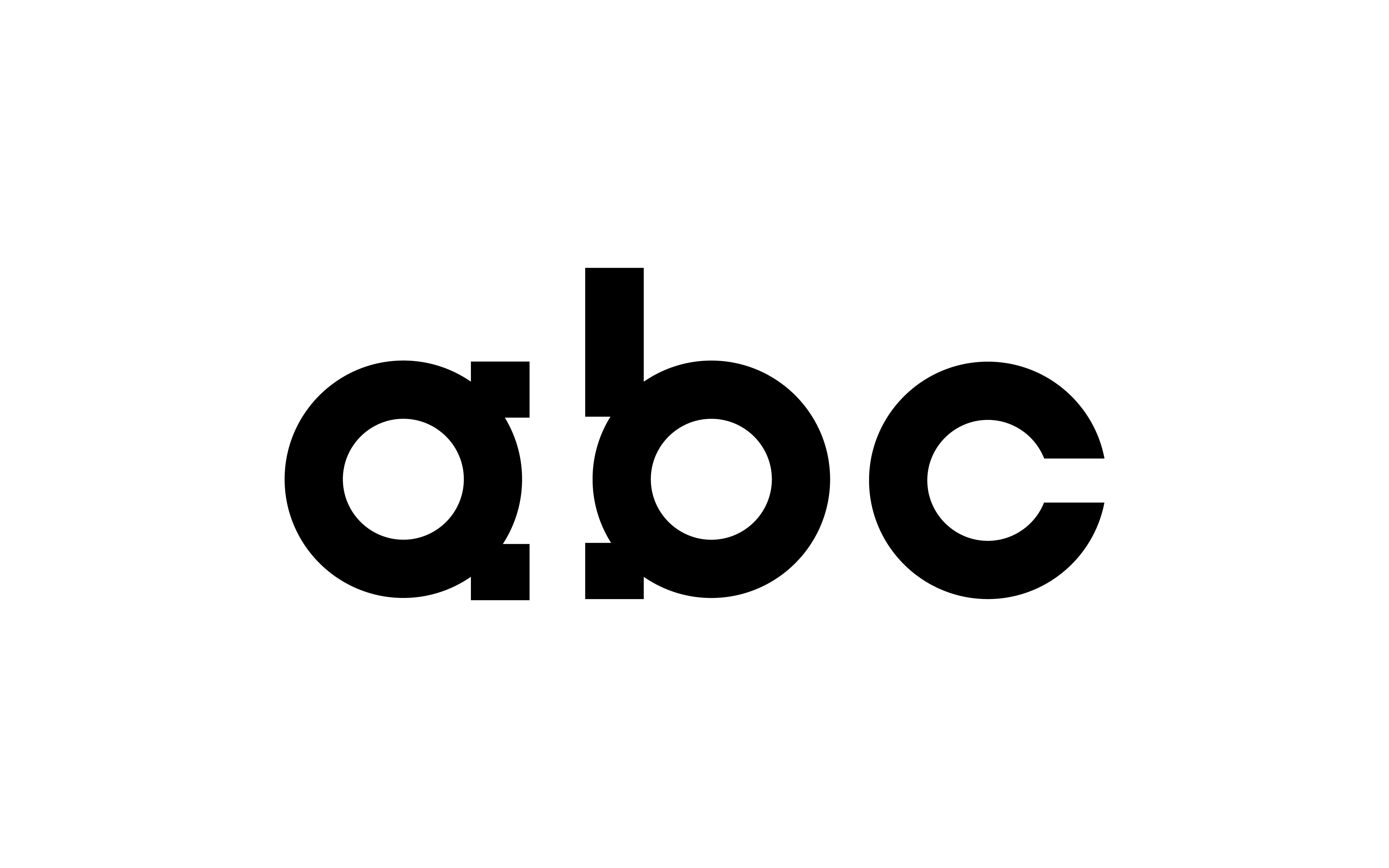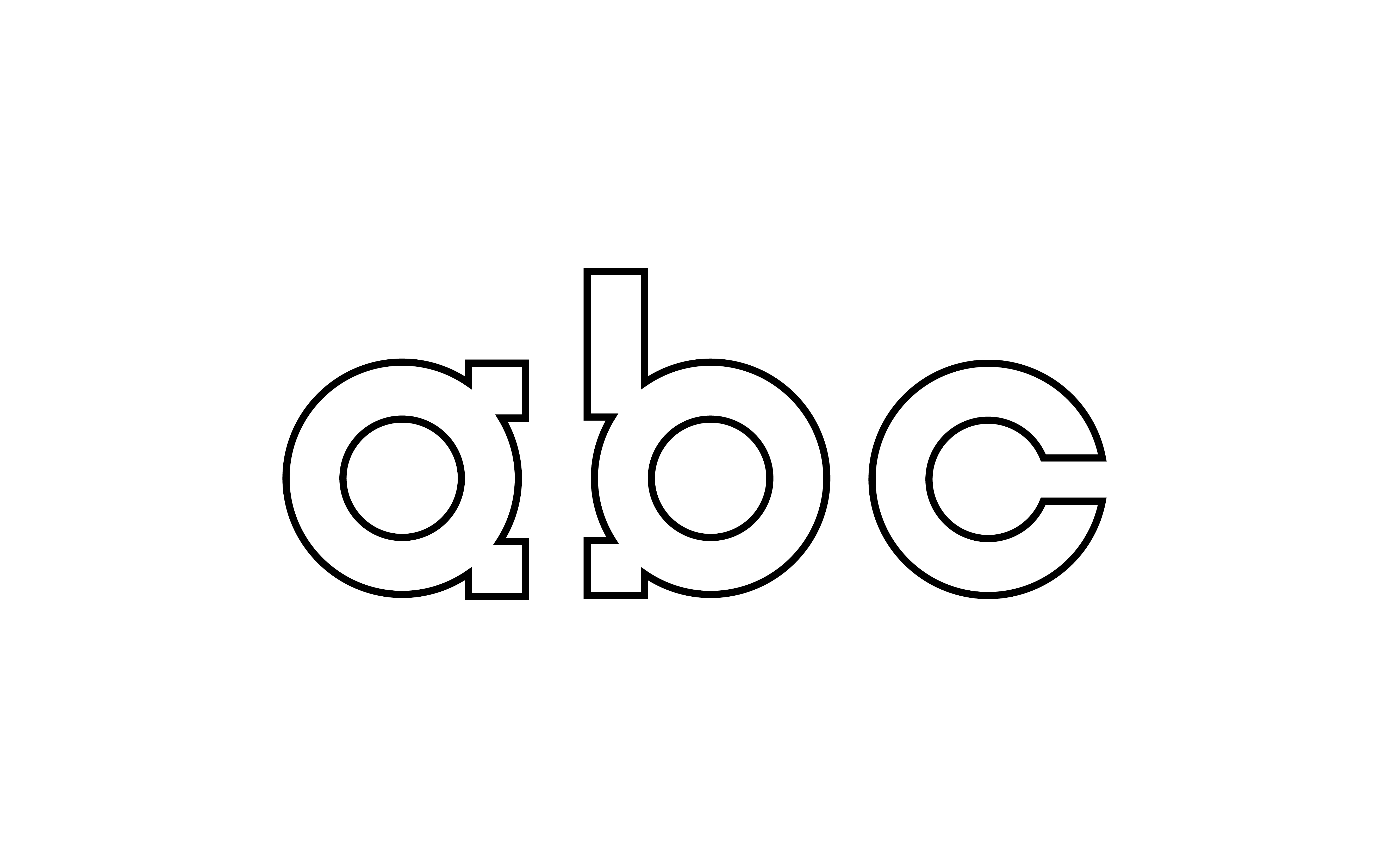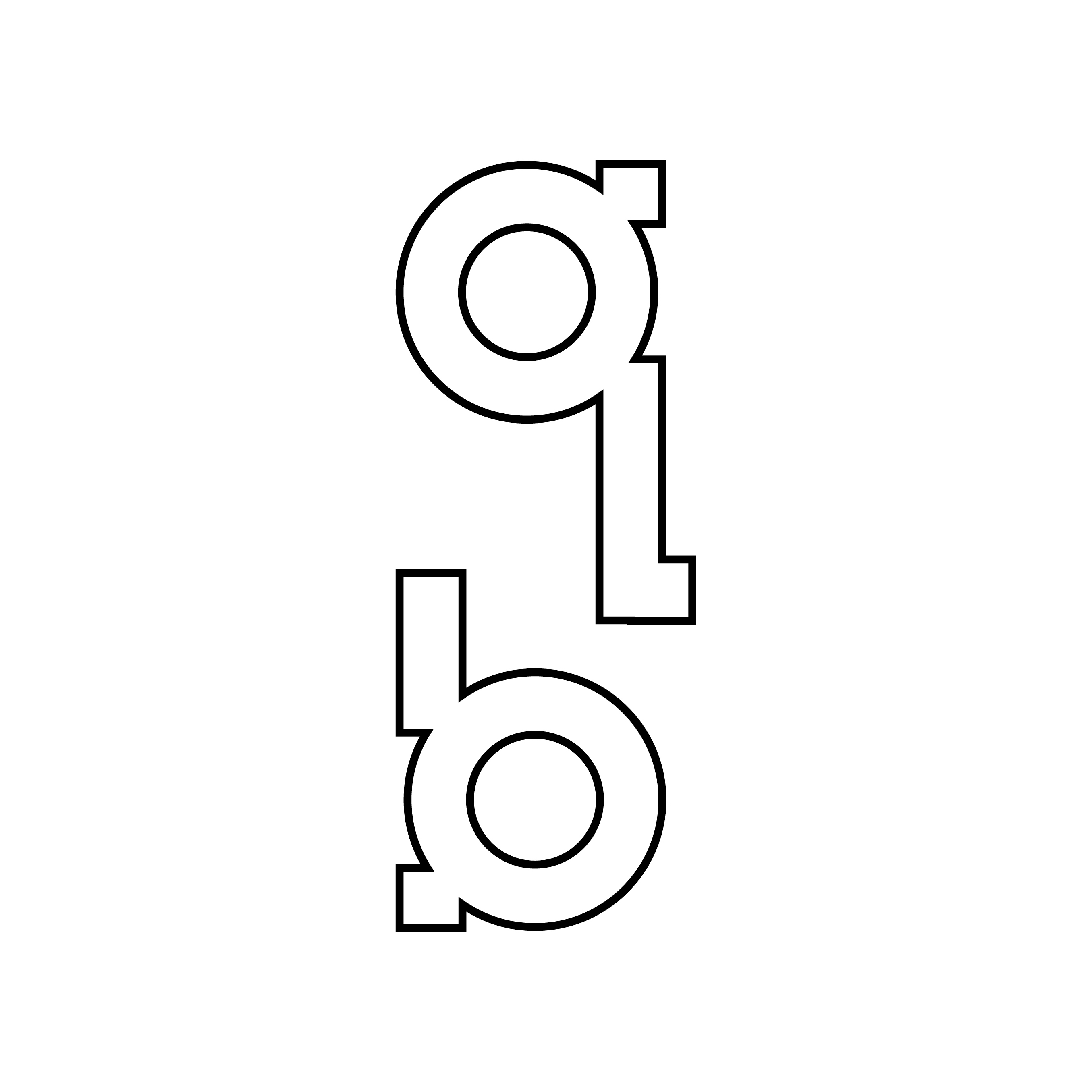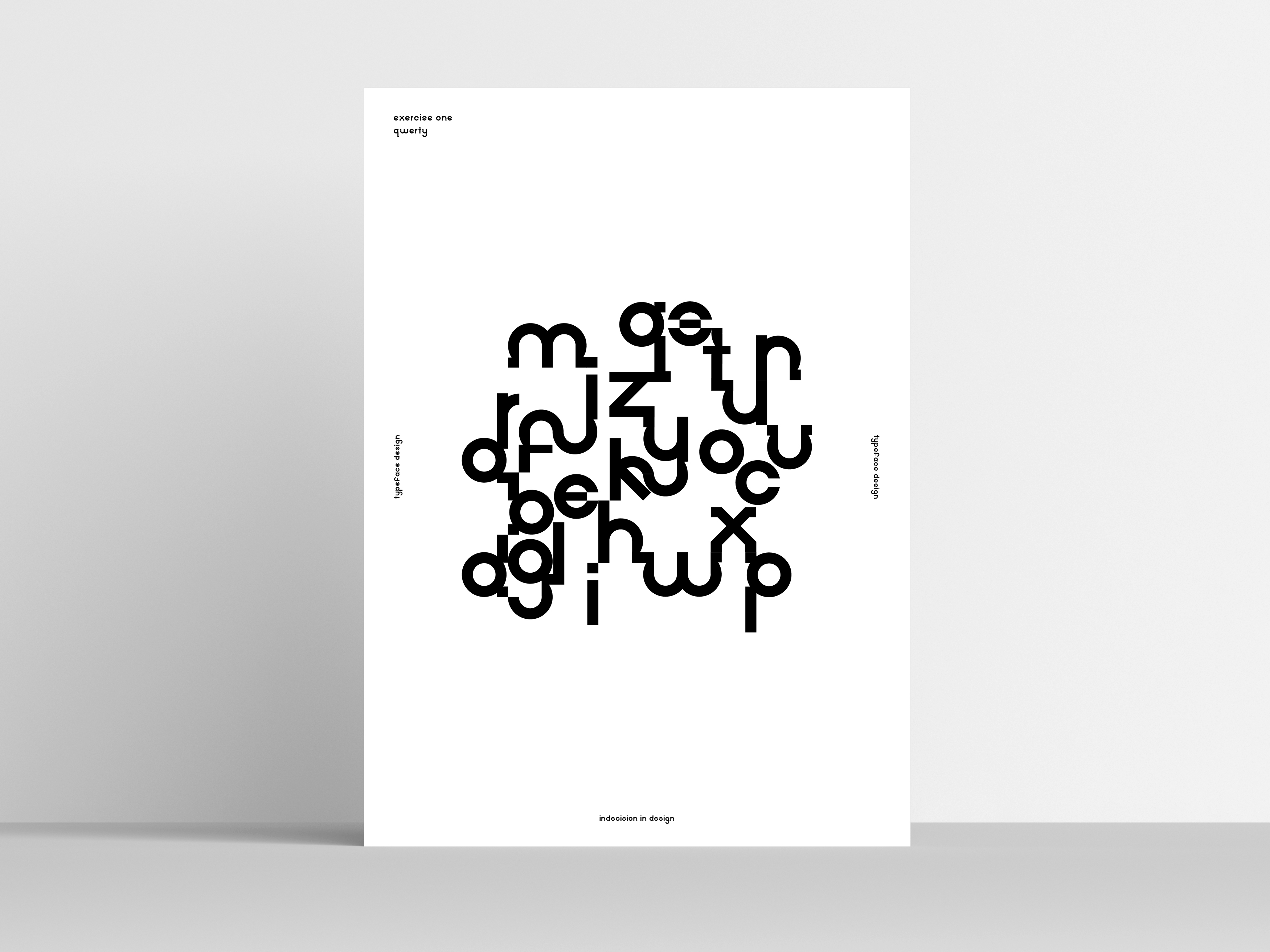
Imperfect — November 2017
The creation of the typeface, Imperfect, is a response to the topic of indecision. By visualising indecision through type, it intends to spotlight the inconsistencies in design. The typeface is based on the circle and the square, therefore creating a form that is contradictory. With these symmetrical forms merging, it creates consistent imperfections across the typeface.